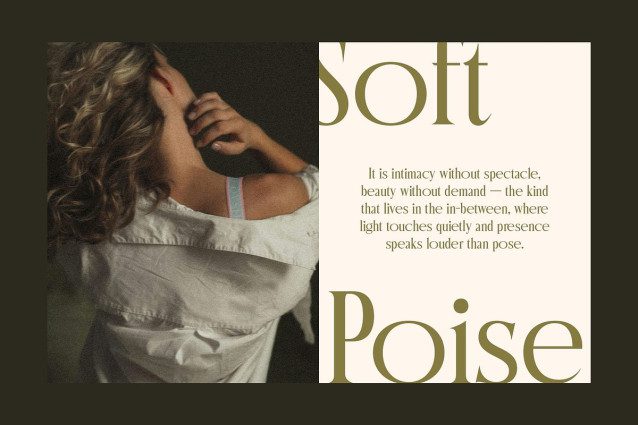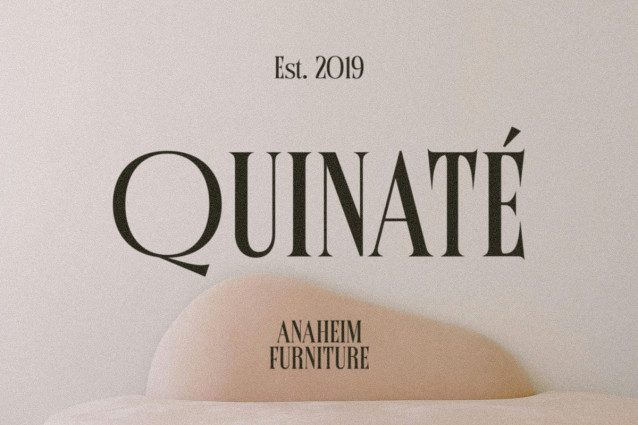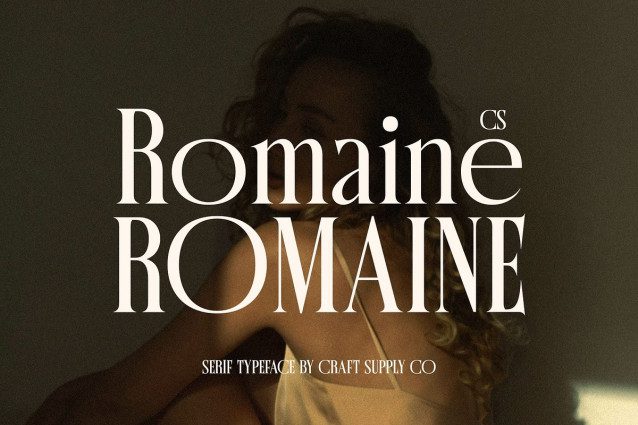
CS Romaine Font
CS Romaine Font – Elegant Serif Font: Where Tradition Meets Timeless Sophistication Classic Serif with Refined Elegance This is an elegant serif font inspired by the grace and balance of Renaissance typography. Its refined curves and harmonious proportions bring a timeless sophistication to every composition. Designed with precision and artistry, this typeface captures the essence of classical beauty while maintaining a modern sense of readability and versatility.
Renaissance Influence for Timeless Design Rooted in the principles of Renaissance letterforms, embodies both tradition and refinement. Each curve and serif is carefully shaped to reflect the elegance of historical craftsmanship, while its smooth flow and balanced rhythm lend a contemporary touch. This makes it ideal for editorial layouts, book typography, and luxury branding that demand a sense of heritage and authority.
High-End Aesthetic for Elegant Branding With its poised letterforms and graceful contrast, delivers a high-end visual experience. It communicates confidence, sophistication, and artistry perfect for premium packaging, upscale fashion labels, or fine publications.
Versatile and Enduring Appeal Beyond its historical roots, this font is designed for versatility in modern design applications. Its clarity in both digital and print media ensures readability while preserving its classic elegance. Whether used in headlines, logos, or body text, this font adds a distinguished touch that elevates design projects to a higher level of sophistication and timeless appeal.